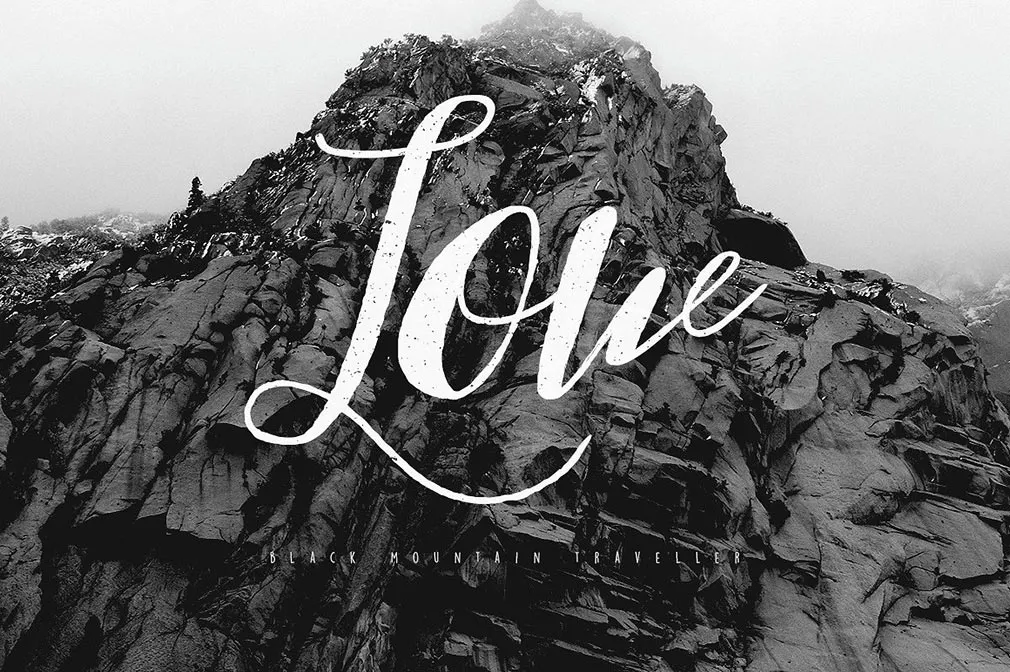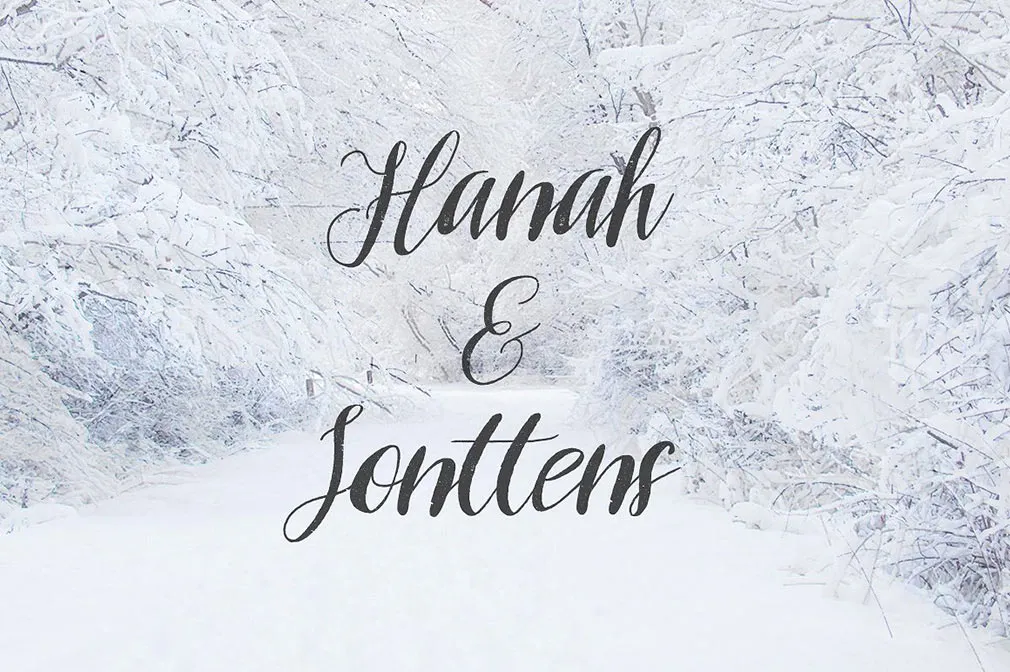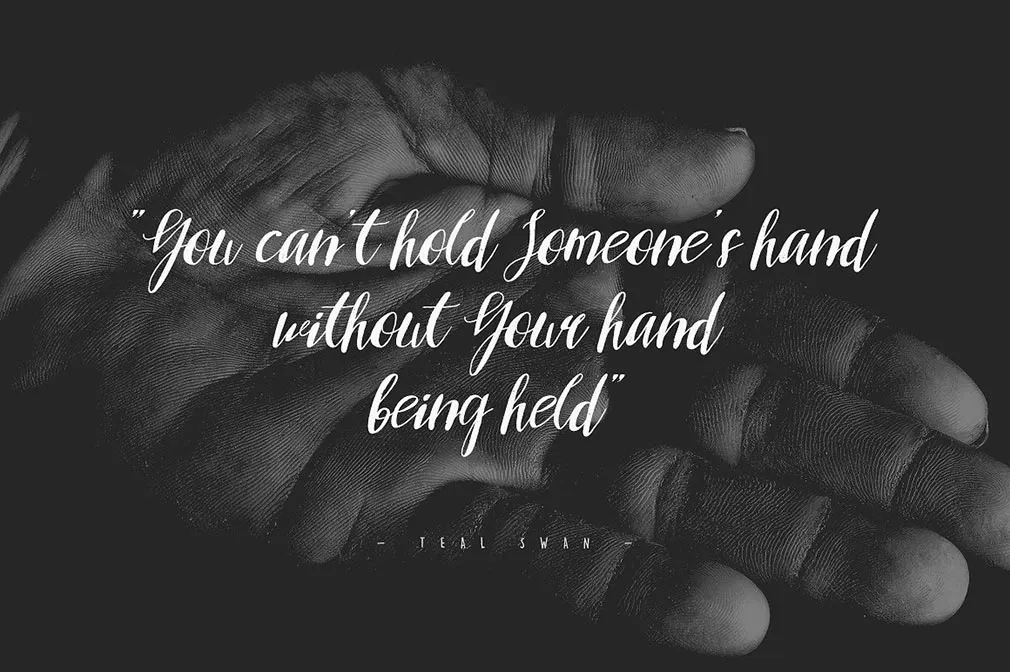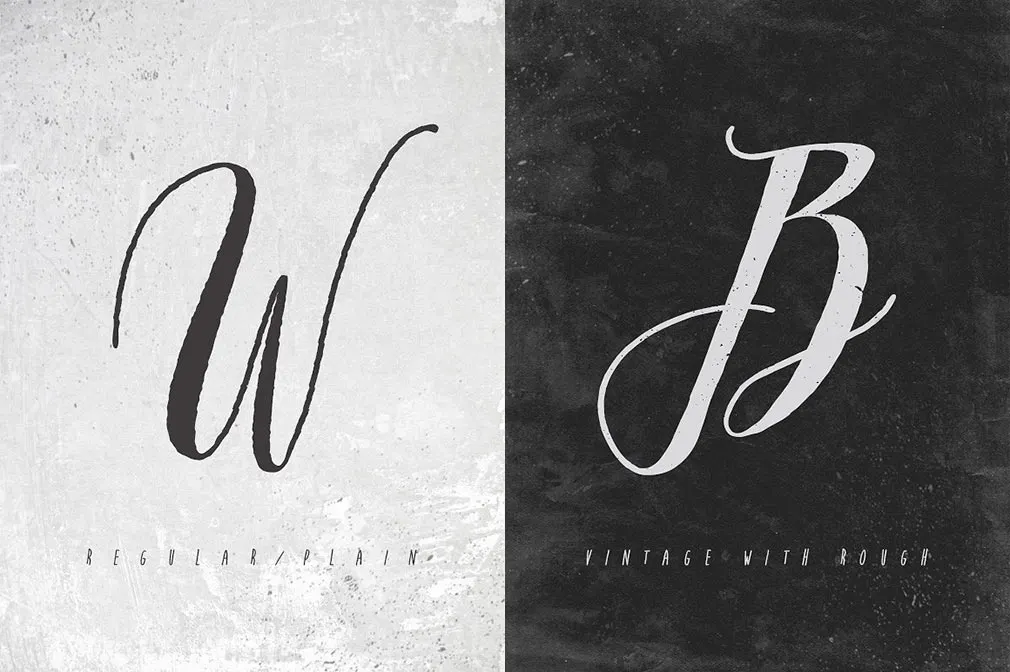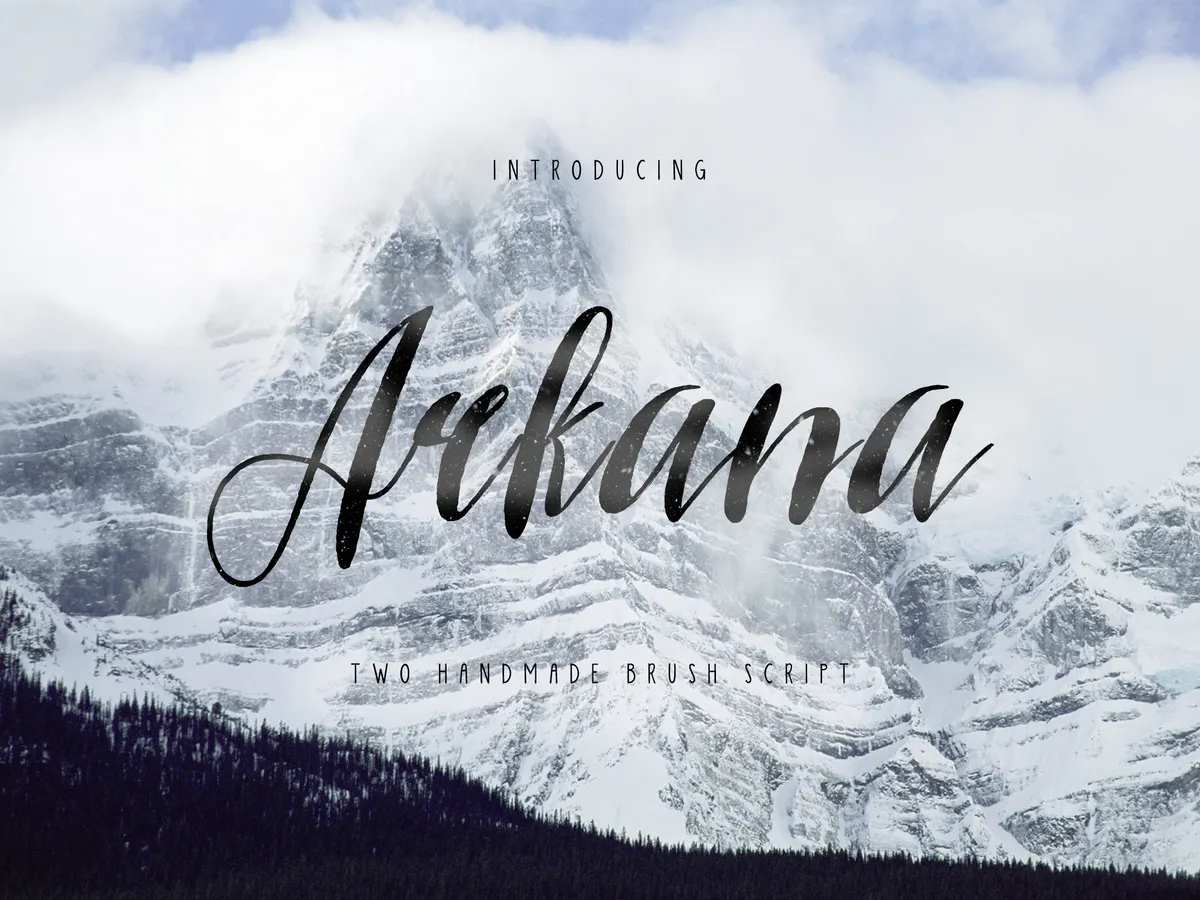
Arkana Script Vintage Font
We're happy to bring you Arkana, an elegant brush script with a wonderful vintage look with the worn turns of its smallest details. However, you can also make it regular, let us tell you more!
This script comes in two styles (regular and vintage one) for many upcoming purposes your design project may face. It's able to give your designs an authentic handcrafted feel of a coziness. The package includes TTF, Open Type, and Web Fonts formats, by the way, because convenience comes first. We can already imagine how it would perfectly suit your stationery, logos, social blog posts, headlines and so on, we can continue forever.